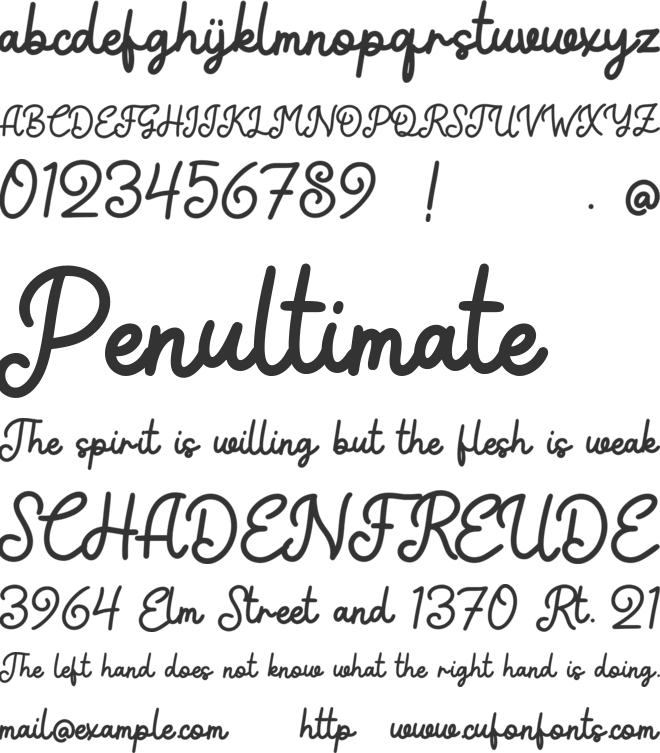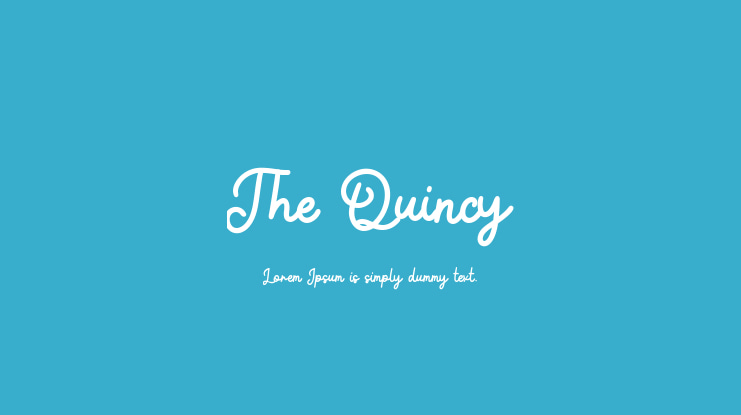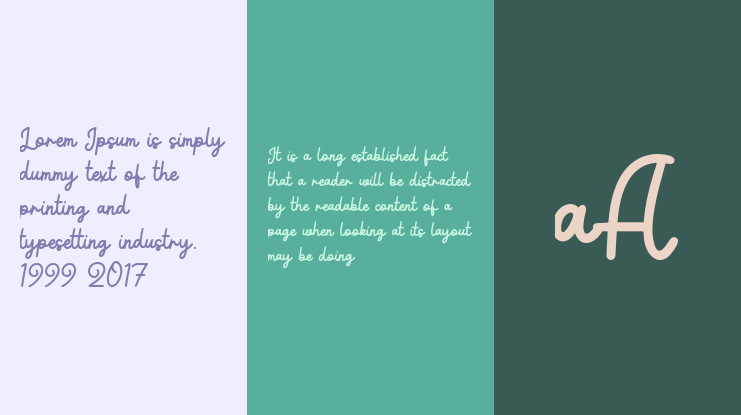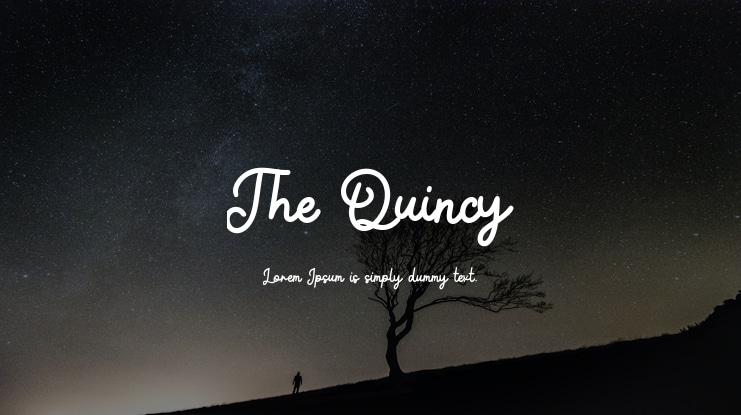
The Quincy Font
Sulthan Mada Maulana Tsani
This Is a A Monoline Script Font. The Quincy is perfect for product packaging, branding project, megazine, social media, wedding, or just used to express words above the background.